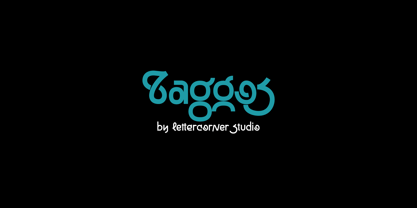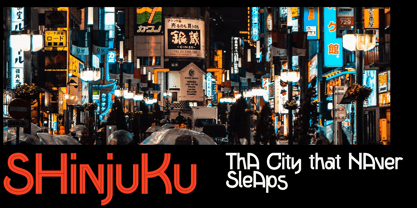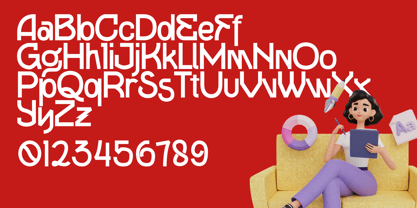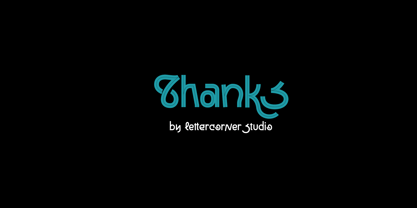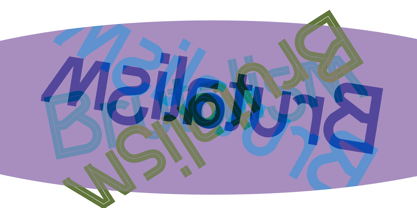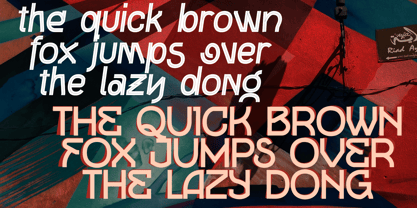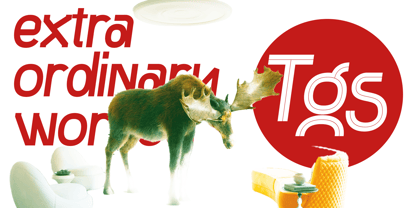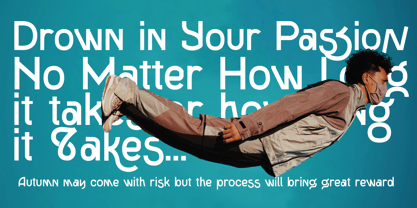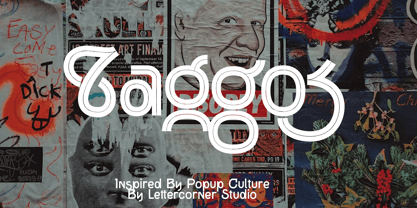
Taggos
by Mevstory Studio
The Taggos Font Family was designed by Muhammad Afif Ersya and published by Mevstory Studio. Taggos contains 4 styles.
Taggos – A Modern Sans Serif Font with a Pop Culture twist, bold, playful, and stylish!
Taggos is here to bring new energy to every project. Inspired by the dynamic world of pop culture — music, fashion, and social media — Taggos combines a modern sans serif style with unique accents that make it stand out and easy to remember.
• Modern sans serif design with a creative twist
• Playful yet highly legible
• Carries an urban and futuristic vibe
• Uppercase & Lowercase
• Numerals & Punctuation
• Alternates & Unique Glyphs